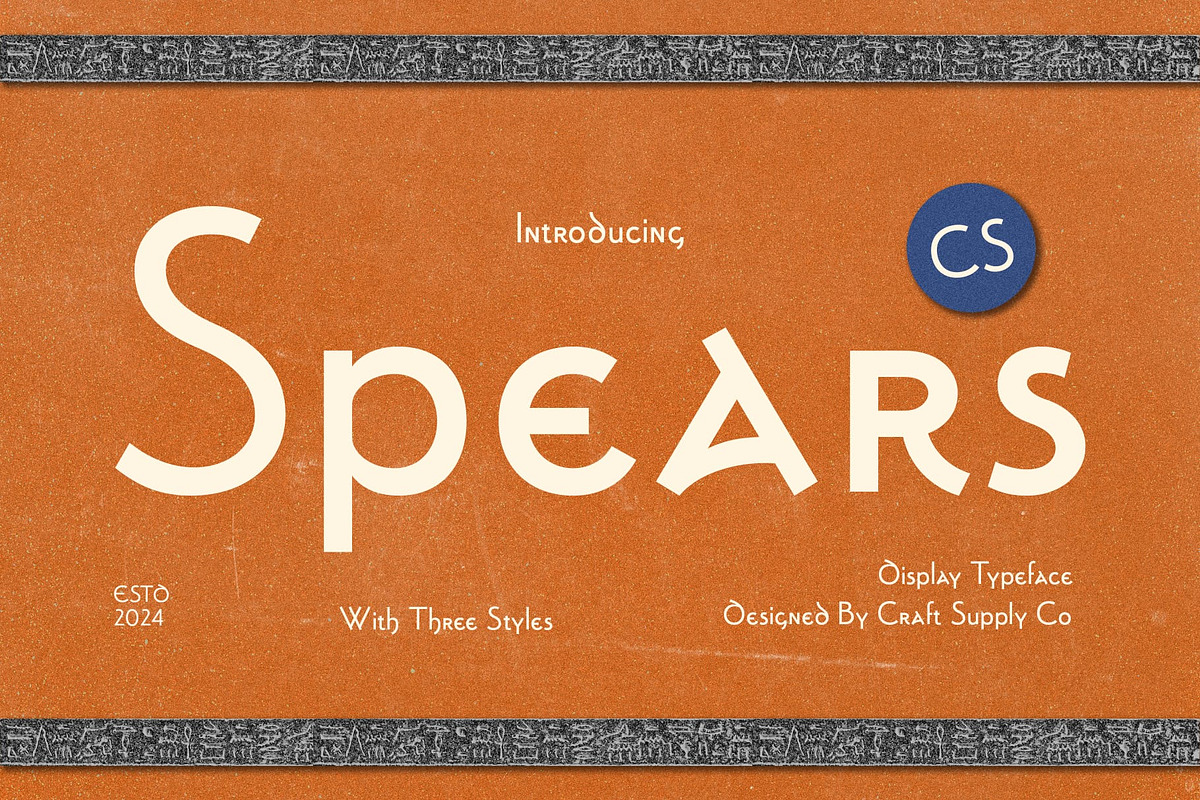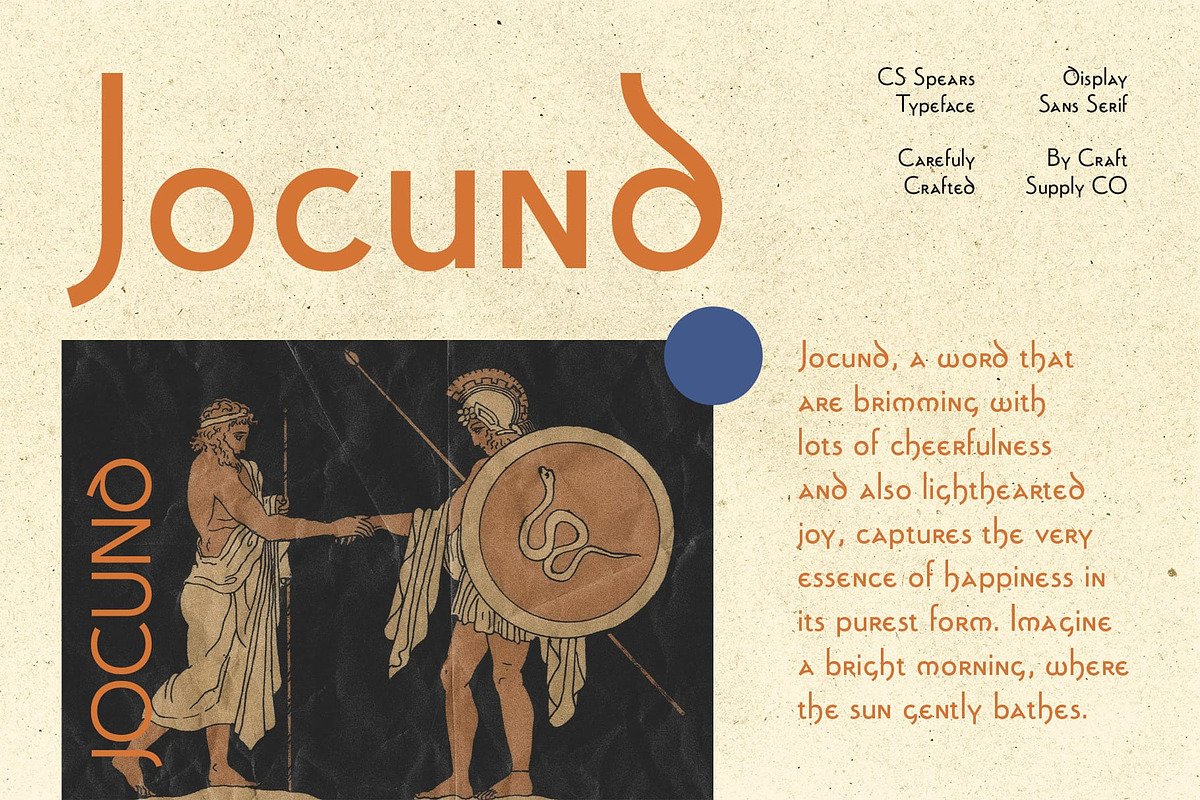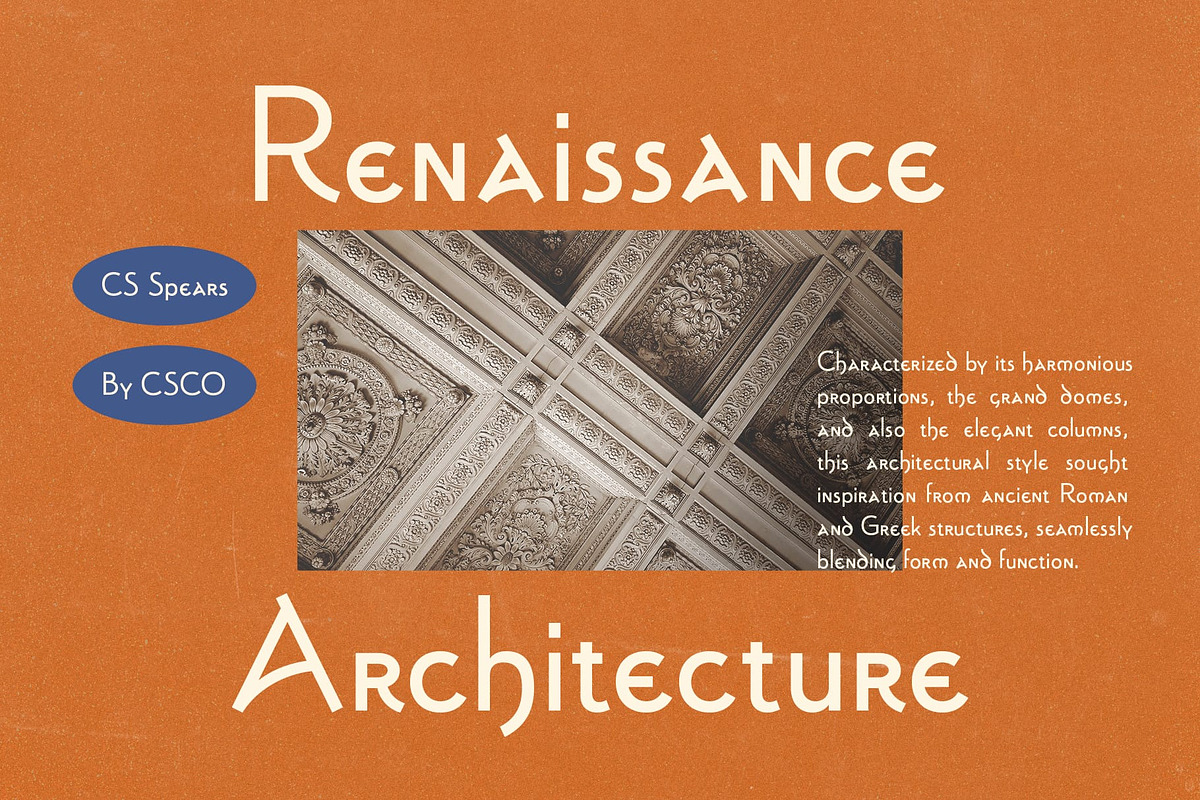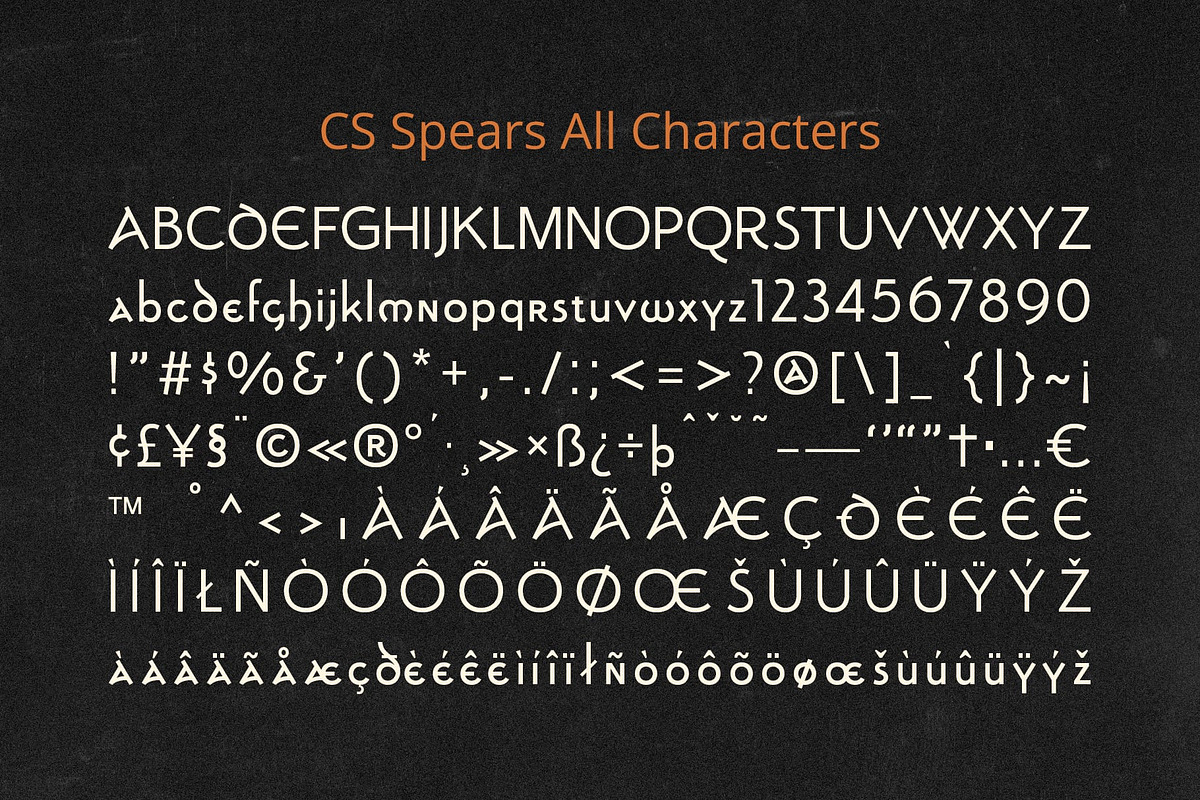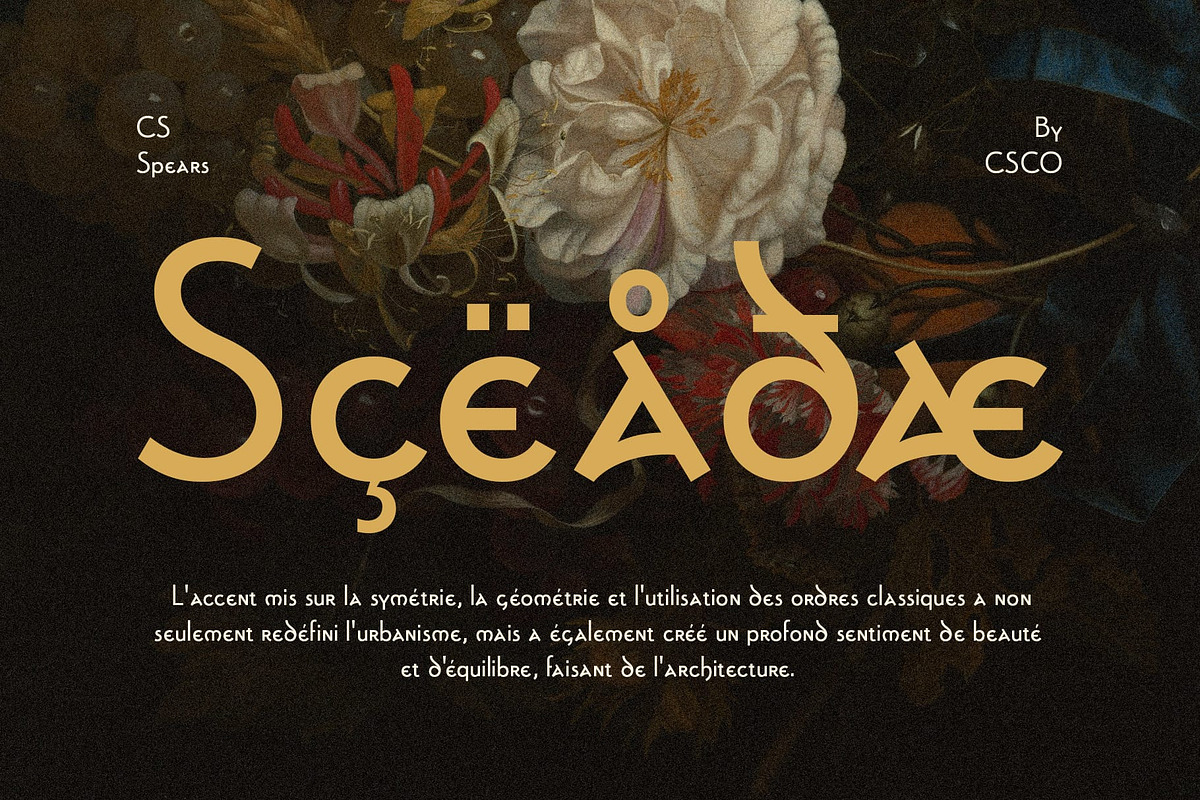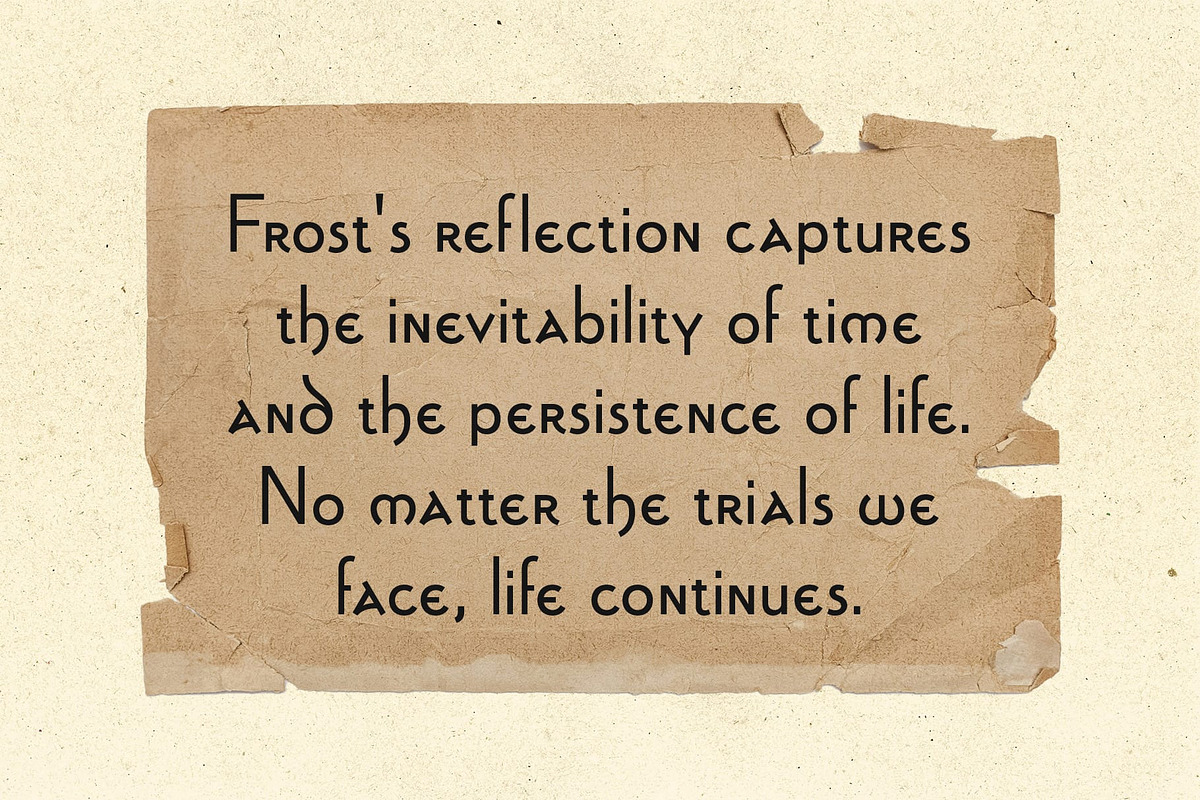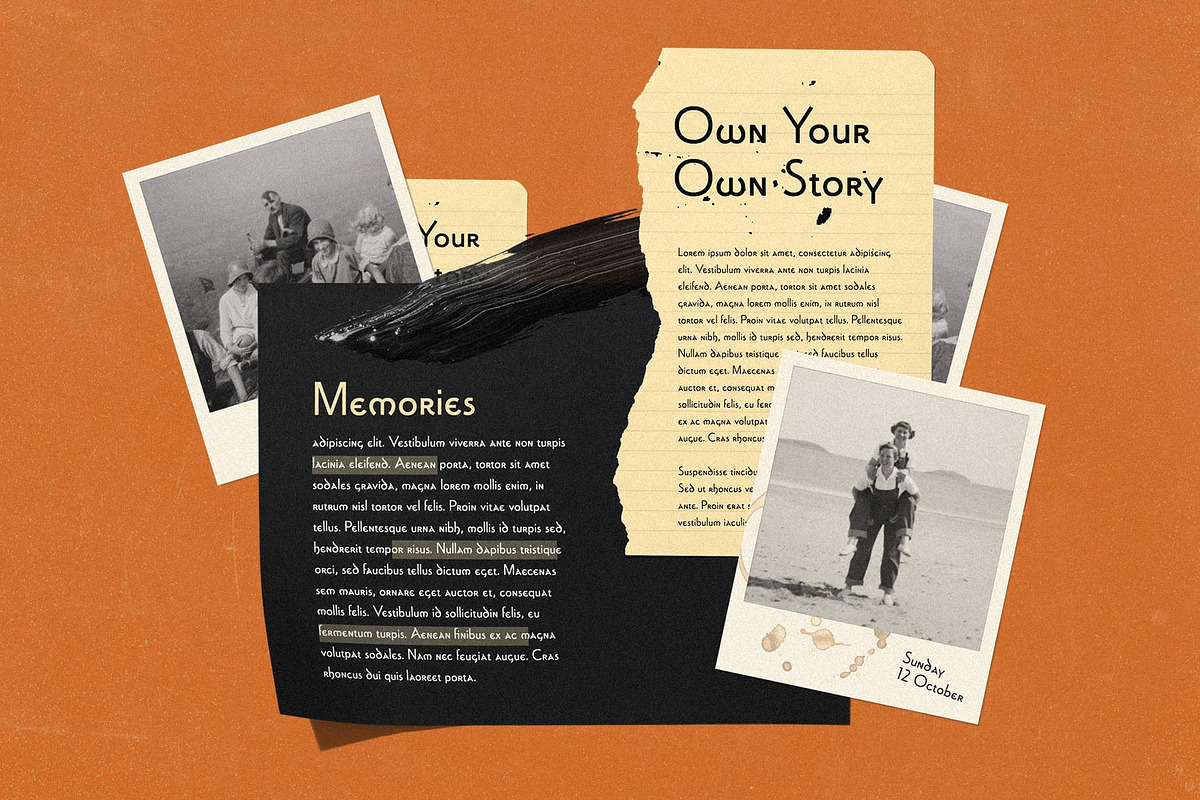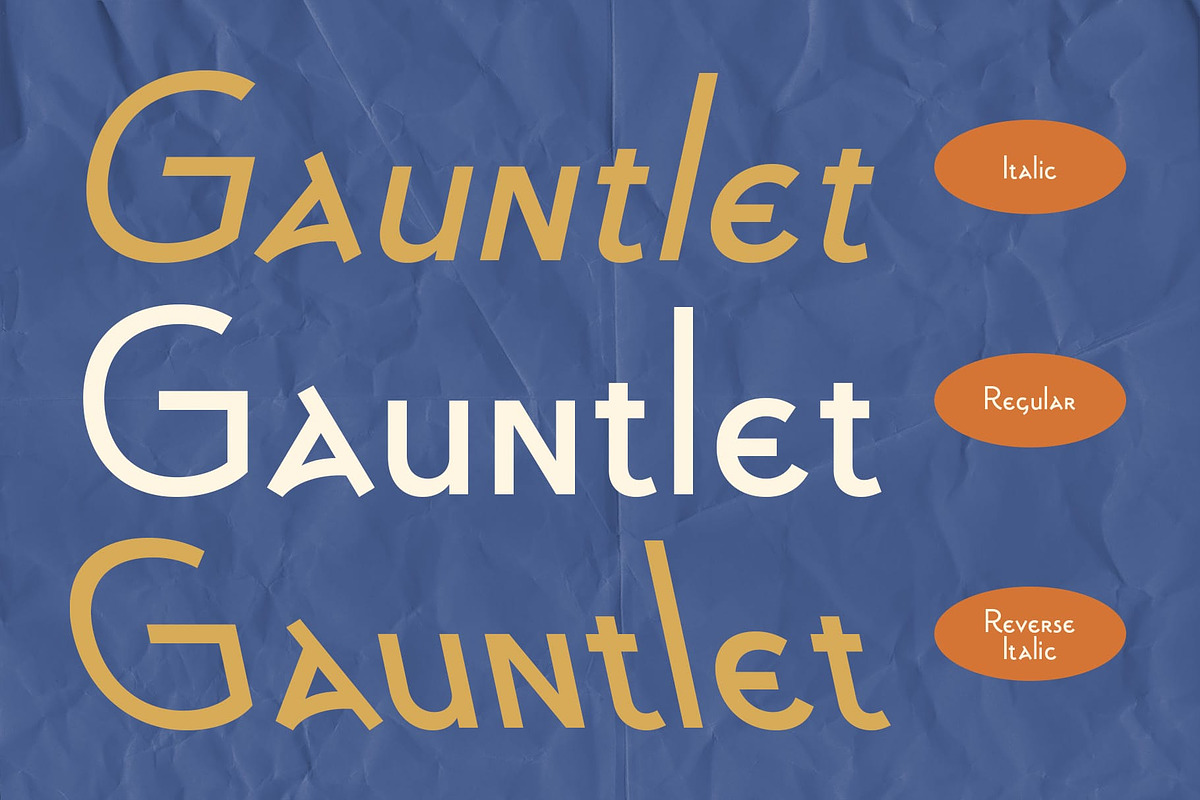
CS Spears – Uncial Font
CS Spears Font – An Elegant Uncial Font
Timeless Design with Historical Roots CS Spears is an exquisite uncial display font characterized by its elegant, rounded letterforms, drawing inspiration from the graceful strokes of medieval handwriting. This font embodies a classic and historical aesthetic, effortlessly blending artistic charm with a sense of nostalgia. Its design evokes an era of craftsmanship, making it an ideal choice for projects that seek to convey sophistication and timelessness.
Perfect for Nostalgic and Sophisticated Projects The unique characteristics of CS Spears make it especially suited for designs that require a classic flair. Whether used in historical books, formal invitations, or branding for products that highlight traditional elements, this font adds a refined touch. Its rounded forms create an inviting feel, enhancing the overall aesthetic of any project while fostering a connection to the past.
Versatile Applications in Creative Design In addition to its use in literature and branding, CS Spears is perfect for poster designs, labels, and artwork that demand a distinctive style. Its elegant curves and historical influences make it an excellent choice for artworks, themed events, and anything that aims to transport the viewer to a different time and place. This font not only captures attention but also conveys profound messages through its striking visual presence.
- CS Spears Regular
- CS Spears Italic
- CS Spears Reverse Italic